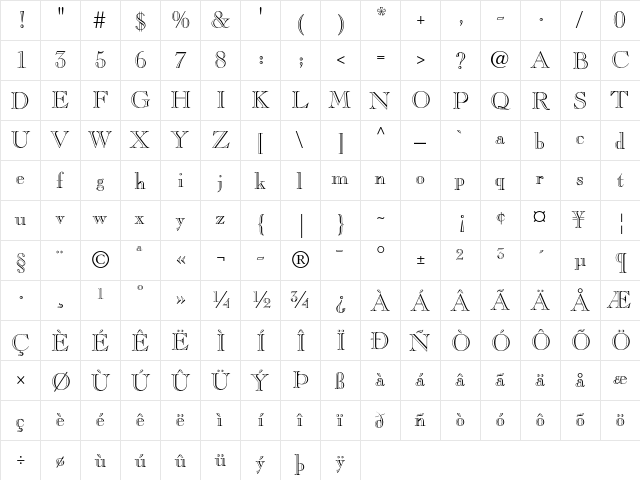
Caslon Open Face LT Std Regular
Design Context for Caslon Open Face LT Std Typeface
Caslon Open Face LT Std offers clean, dependable letterforms without strong stylistic allegiance, making it a practical choice for designers who need flexibility. The delicate stroke weight brings airiness and refinement to layouts.